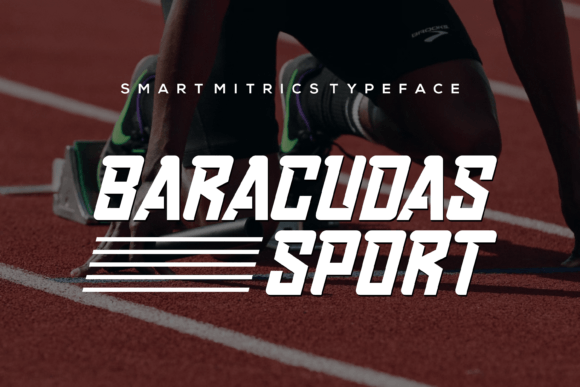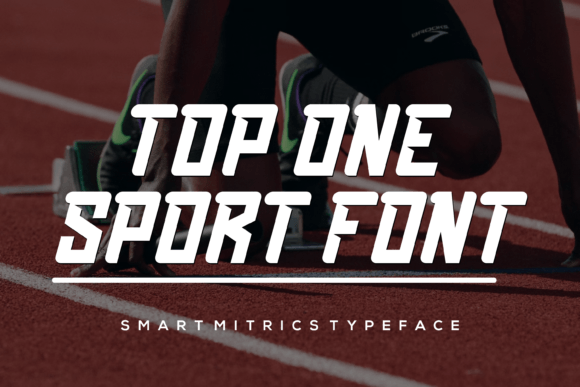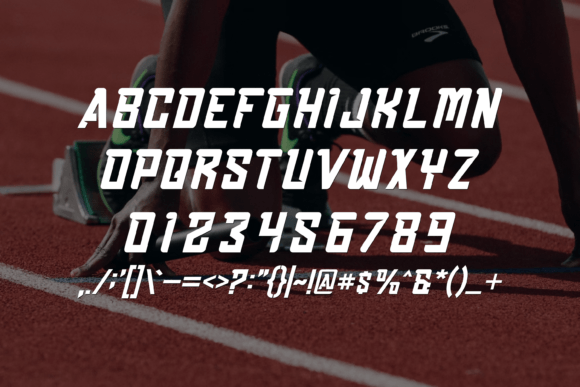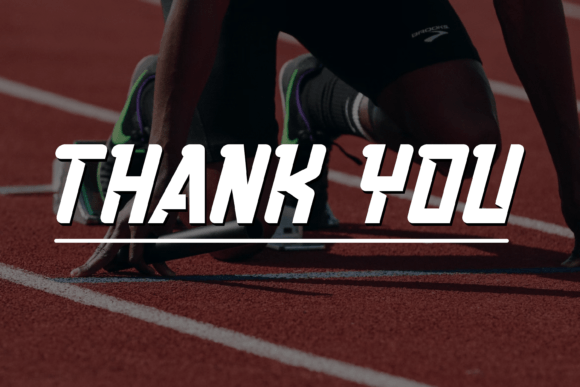
Serif Fonts Smartmitrics Font 0 182 FacebookTwitterPinterestWhatsApp SMARTMITRICS FONT SPECIMEN Smartmitrics is a charming slab serif font suitable for complementing your creative projects. Its characters are unique and modern, perfect for a captivating look!